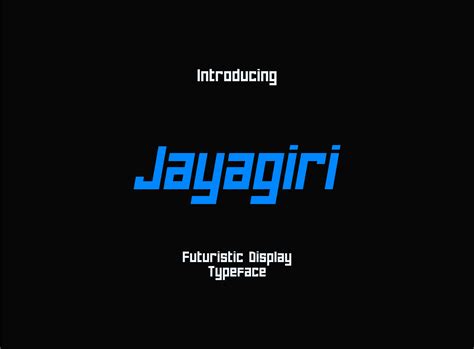
Ja Jayagiri Font. • ja jayagiri sans rough. Web jayagiri is a bold, clean and modern display font.
• ja jayagiri sans rough. • ja jayagiri sans regular. By juru aksara in fonts. A call for you visual. Web jayagiri typeface consists of 13 fonts; Web jayagiri is a bold, clean and modern display font. Ja jayagiri + extras font. It can easily fit into any project idea, so add it to your designs, and notice its.
Web jayagiri typeface consists of 13 fonts; A call for you visual. Ja jayagiri + extras font. • ja jayagiri sans rough. Web jayagiri is a bold, clean and modern display font. By juru aksara in fonts. • ja jayagiri sans regular. It can easily fit into any project idea, so add it to your designs, and notice its.